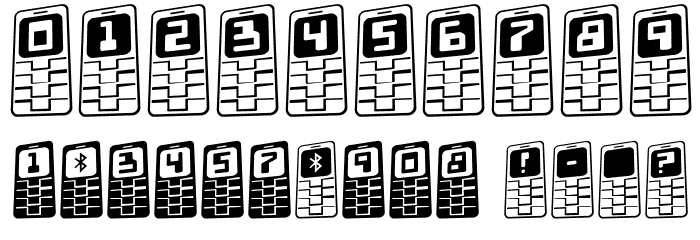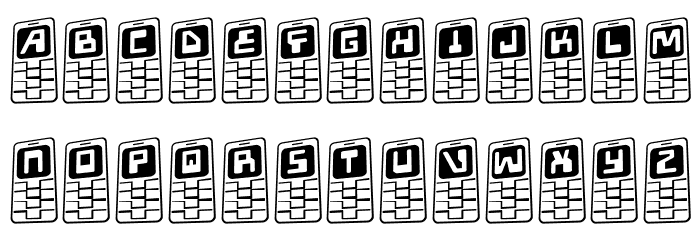
Hola Mota 3D3 Font
Hola Mota 3D3 Description
This font features a bold, three-dimensional style with a playful and modern aesthetic. Each character is enclosed within a rectangular, slightly tilted frame, giving the impression of a digital keypad or retro gaming interface. The letters and numbers are blocky and geometric, with a consistent thickness that enhances readability while maintaining a unique visual appeal. The special characters are designed to match the overall theme, ensuring a cohesive look across all elements. This font's distinct style makes it ideal for projects that require a futuristic or tech-inspired vibe.
A bold, 3D font with a playful, modern aesthetic resembling a digital keypad.
- Proposed Projects: Ideal for video game titles, tech-themed posters, digital interfaces, and creative branding projects.
- Category: Decorative/Display